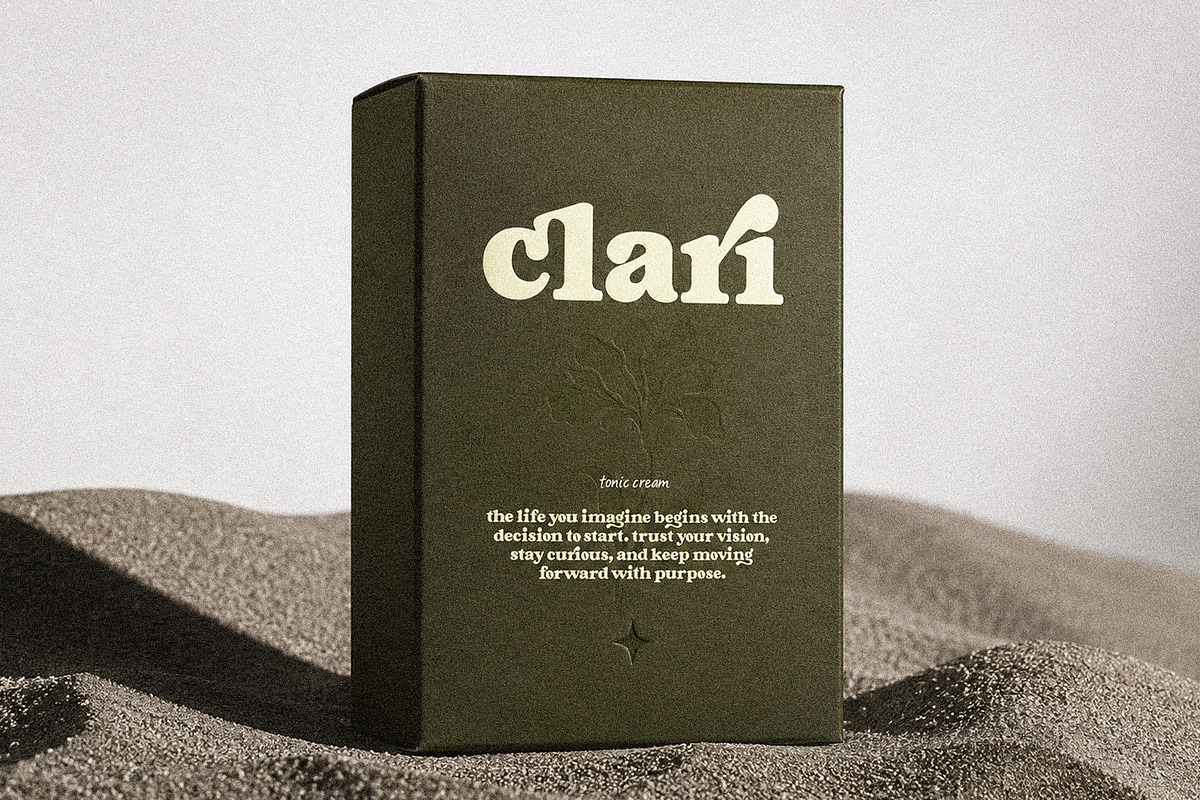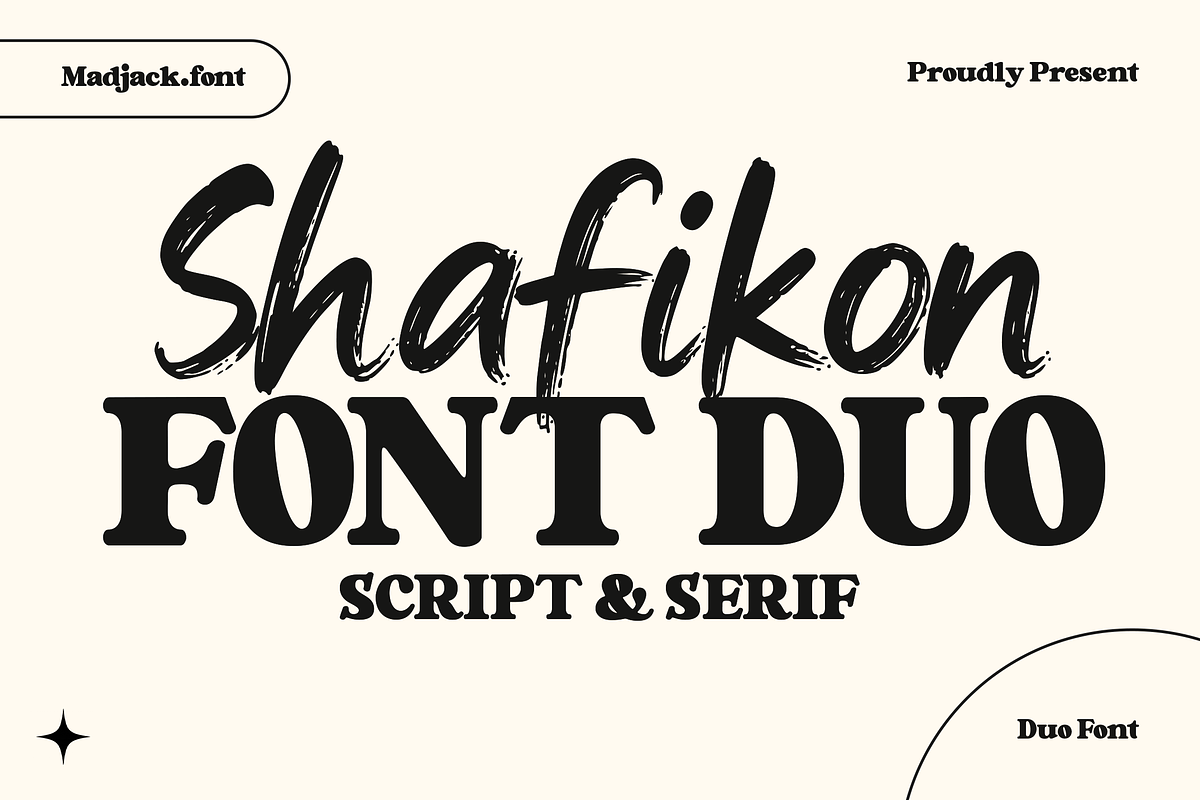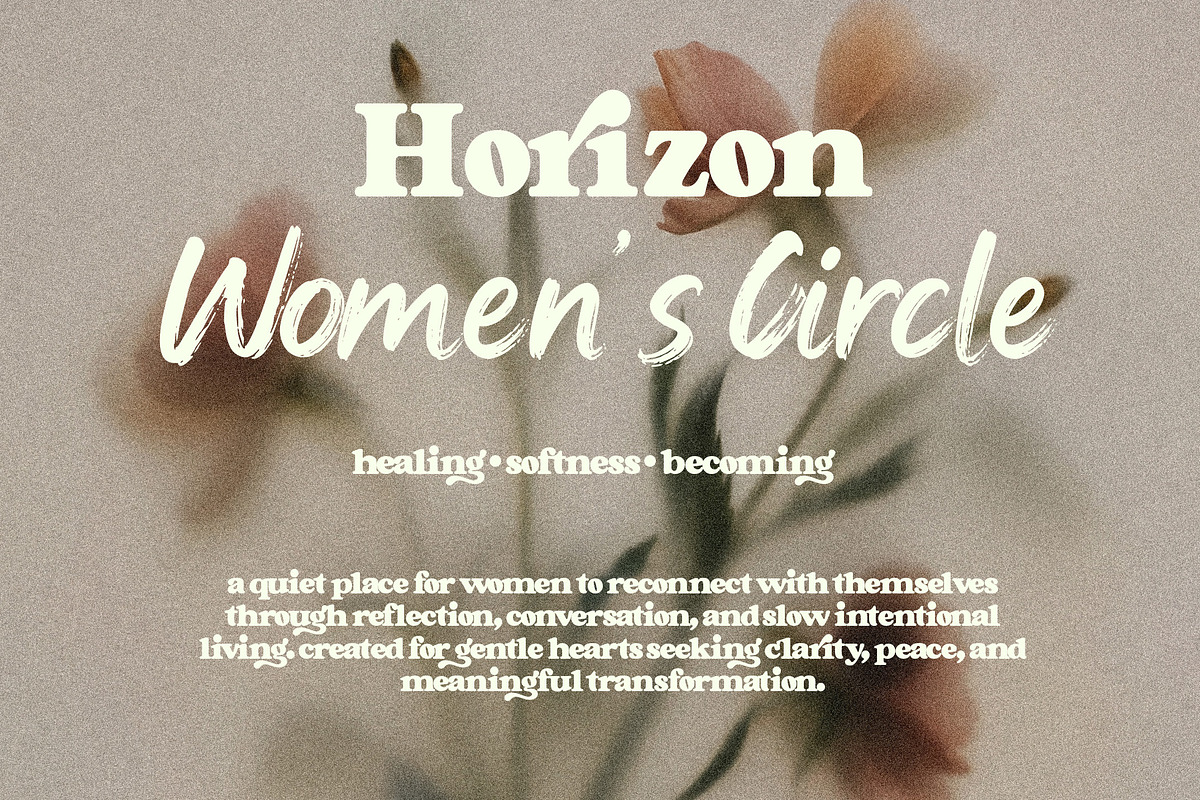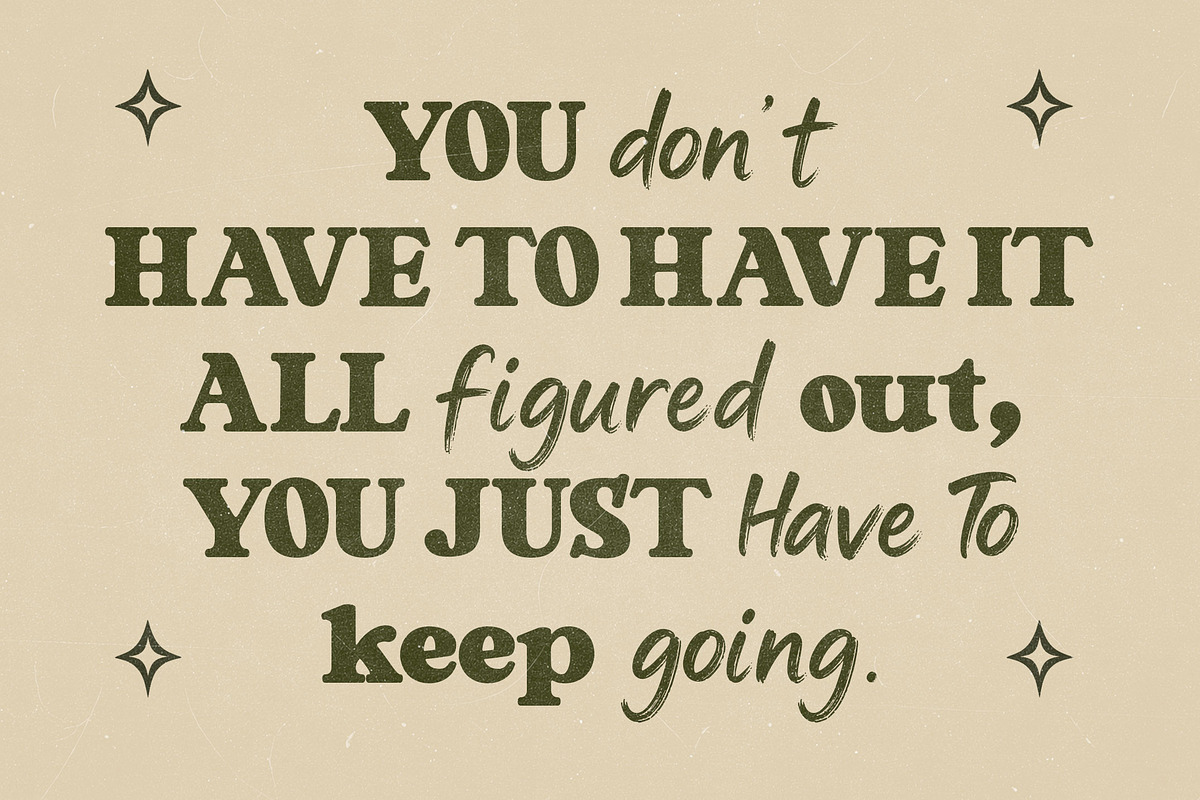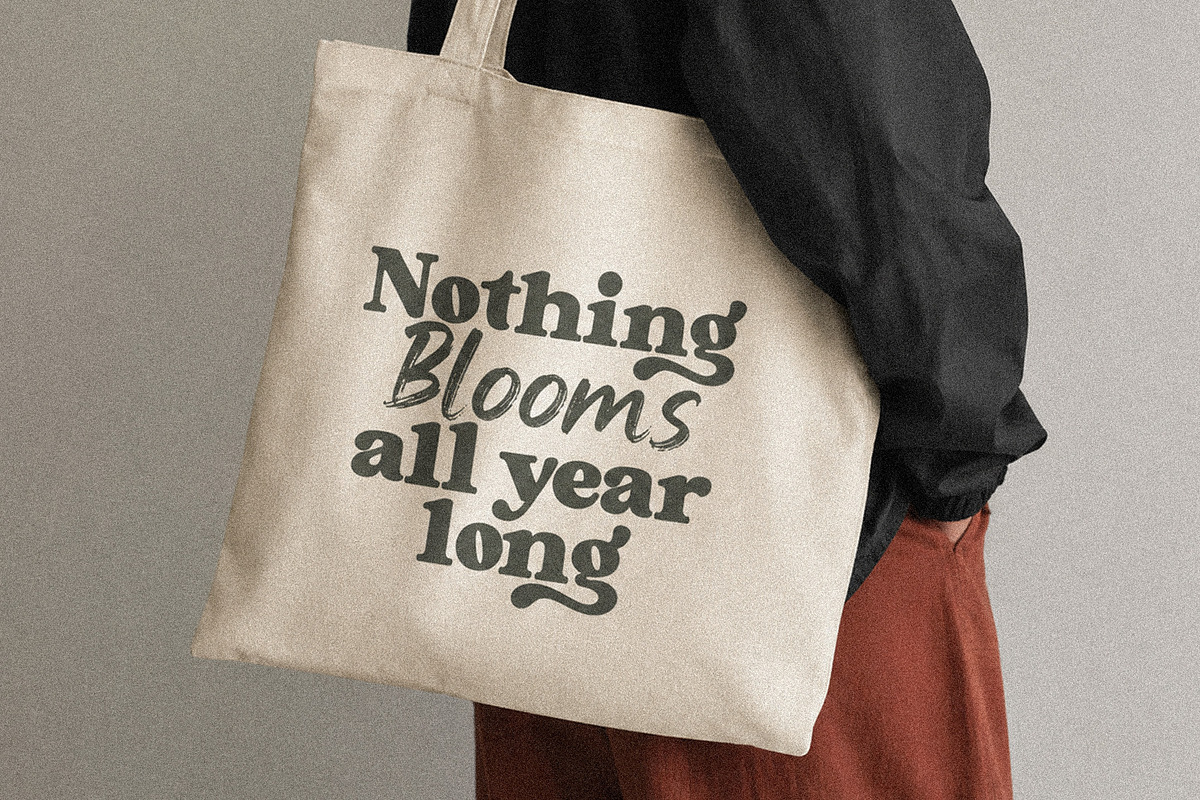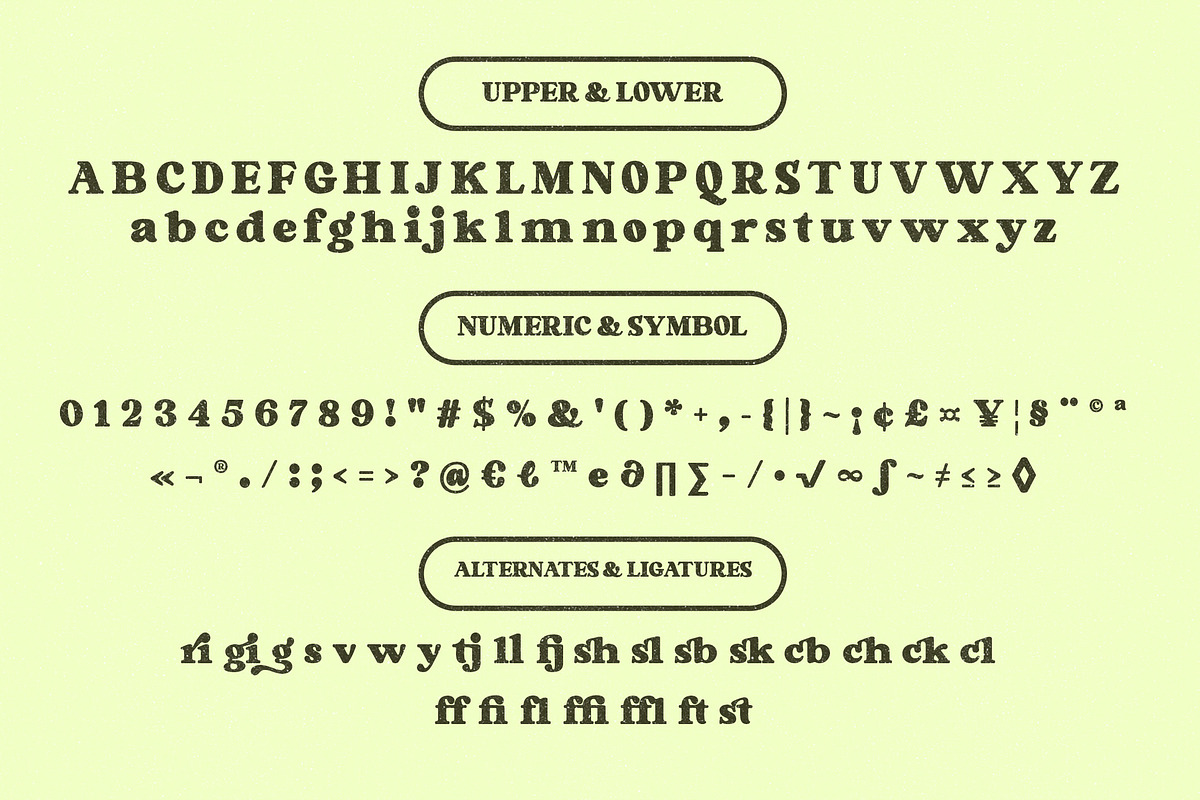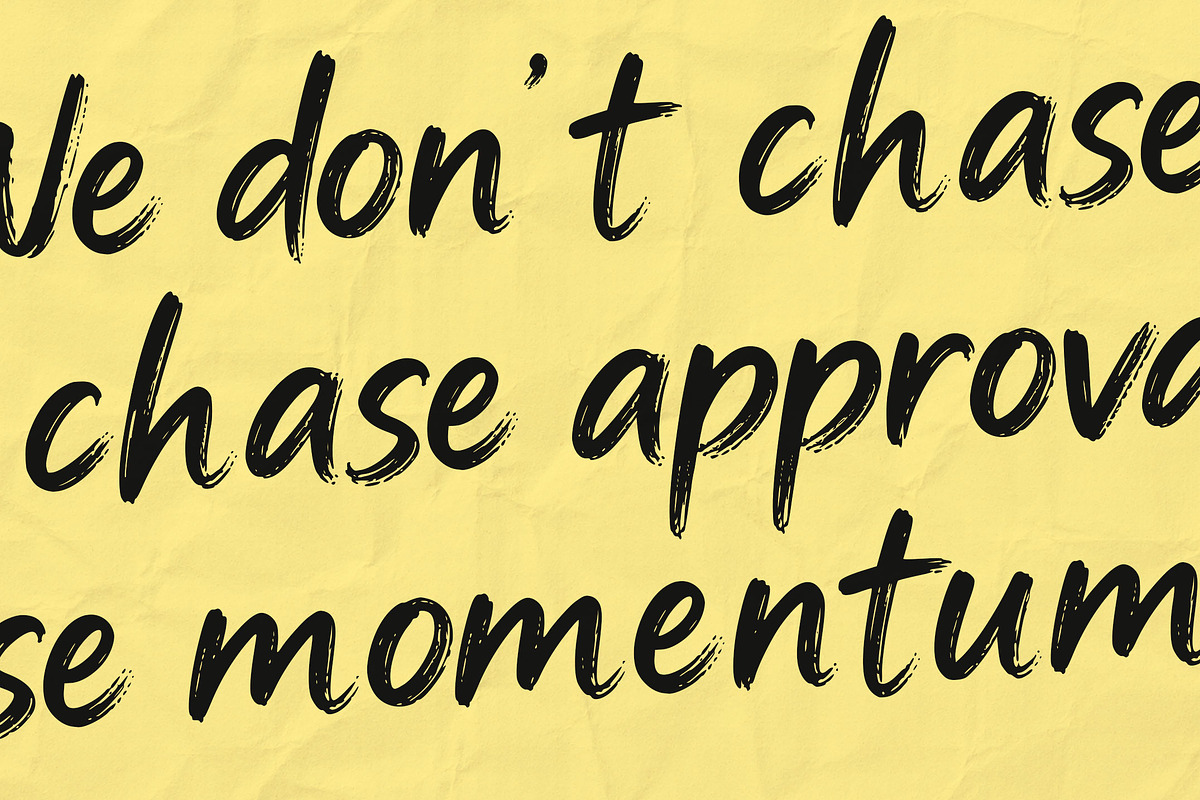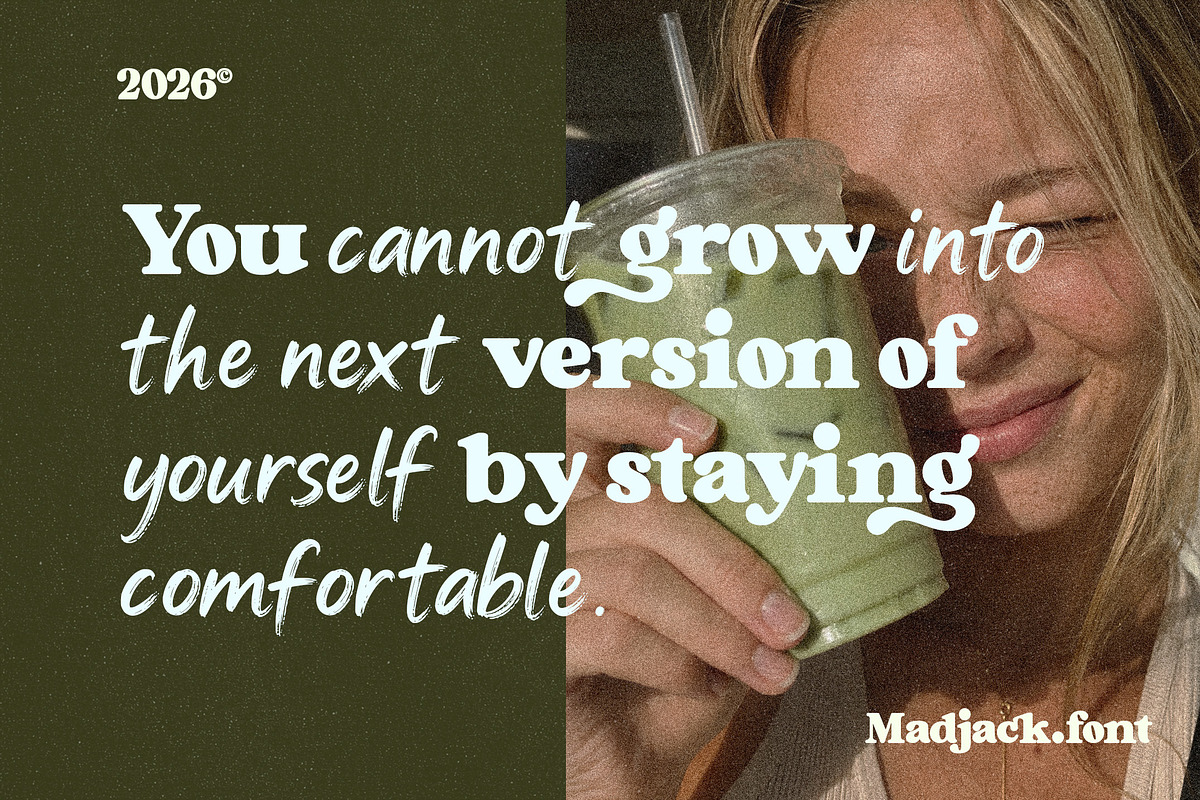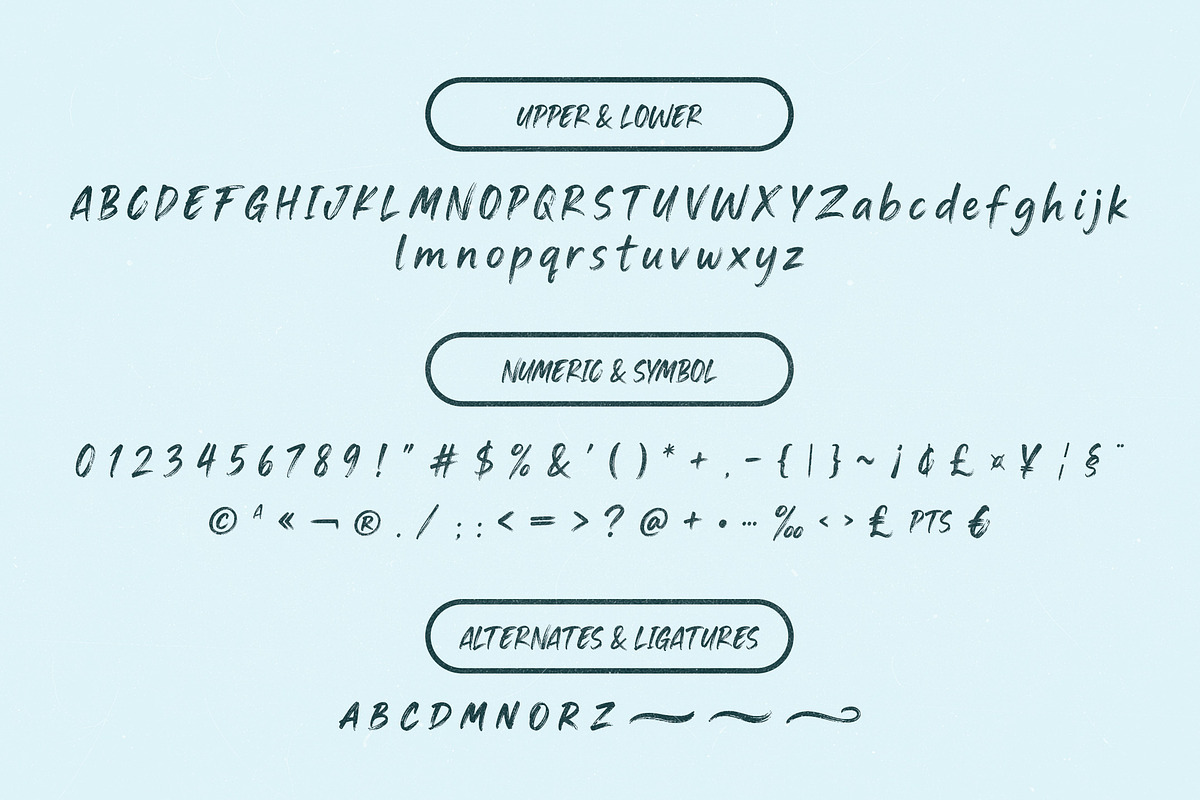
Shafikon Font Duo
Introducing Shafikon, a captivating duo font that balances classic elegance with modern simplicity. This unique combination consists of two complementary typefaces:
Script Brush Font: A classic, smooth, and flowing handwriting style, perfect for creating an elegant, warm, and personal feel. Ideal for branding, wedding invitations, quotes, and feminine designs.
Serif Font: A capital letter style with a classic, minimalist look. Its clean, versatile design makes it perfect for headlines, logos, and typographic elements that require clarity.
Shafikon is designed to provide flexibility in a variety of design projects. Use both together to create an eye-catching visual contrast.